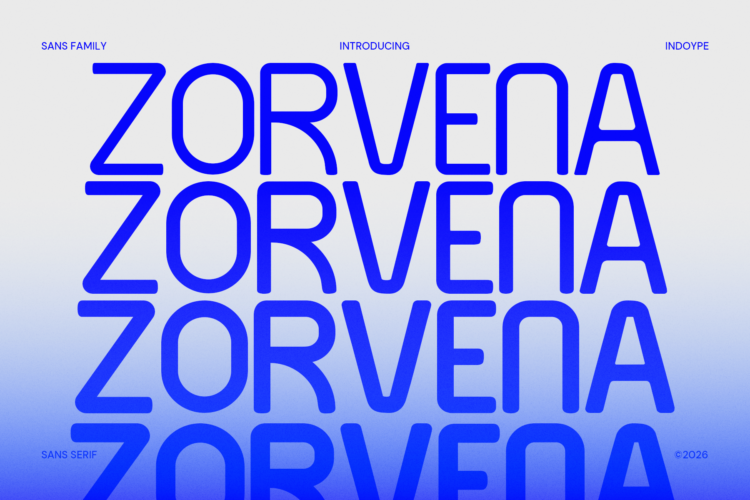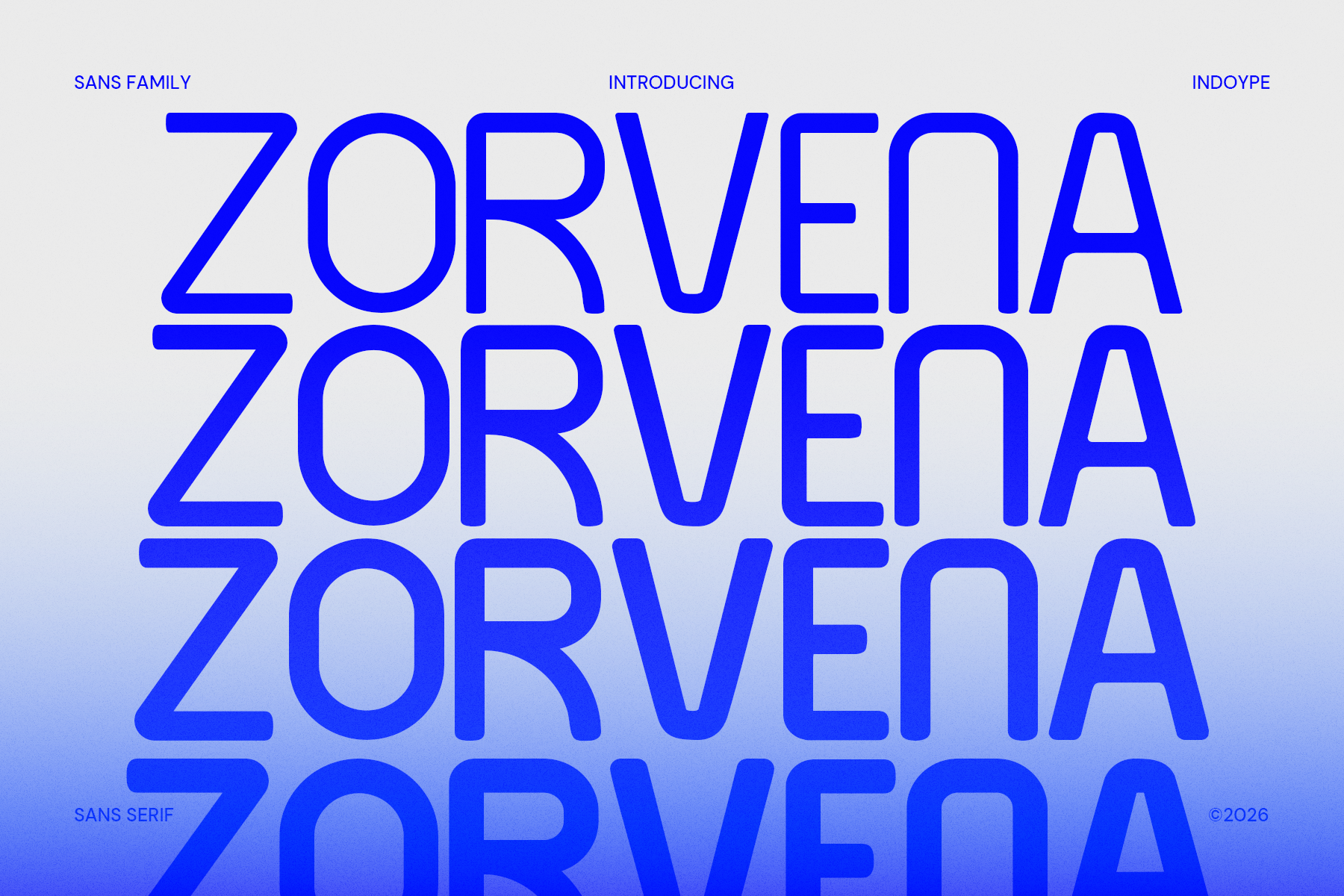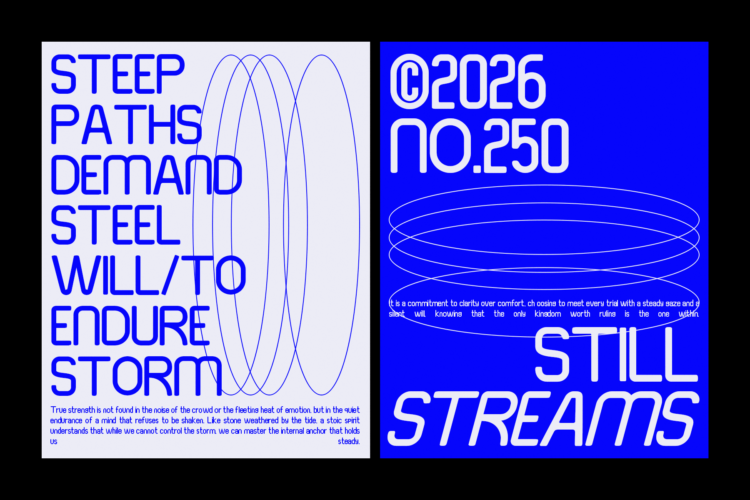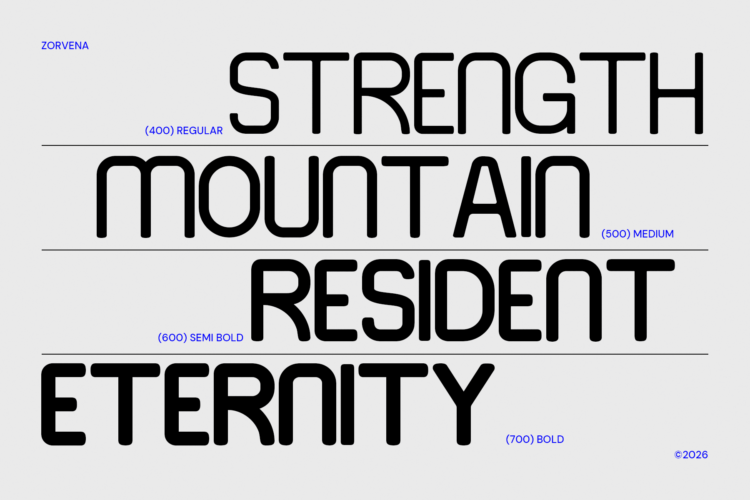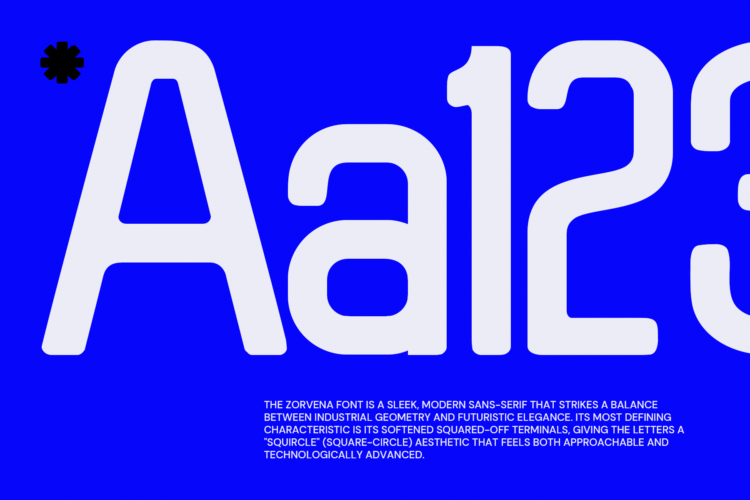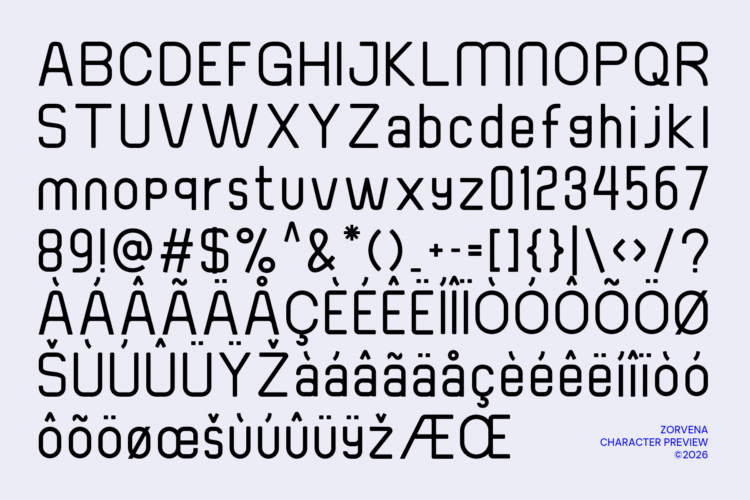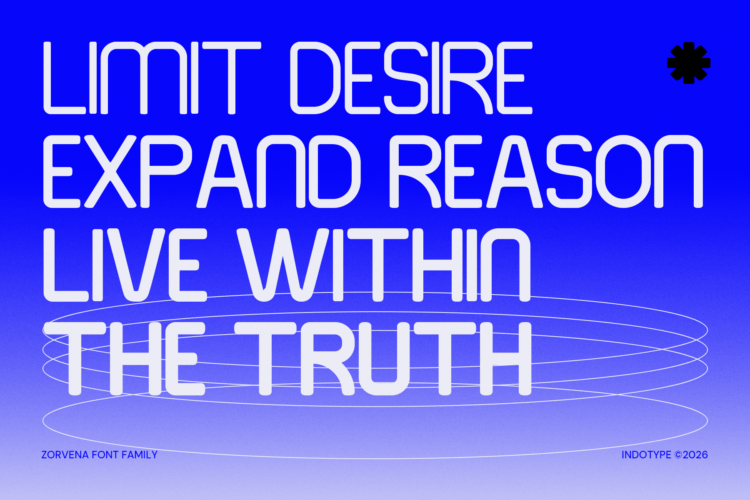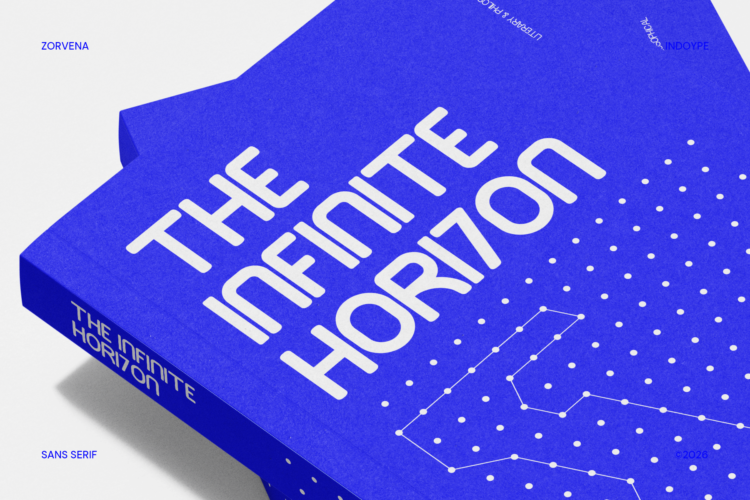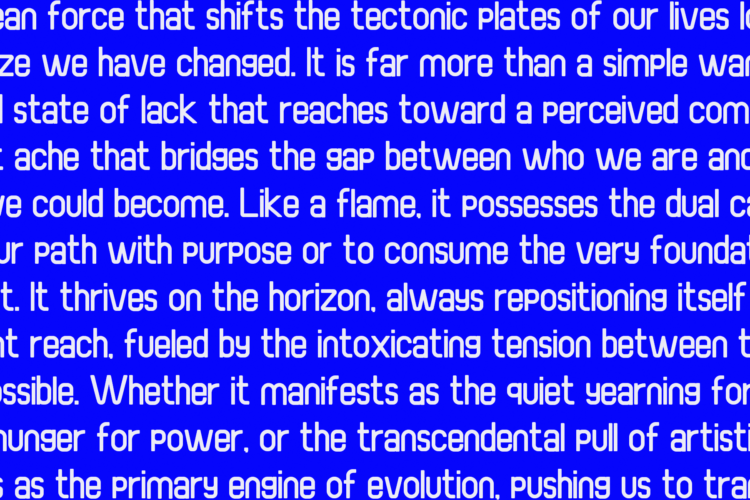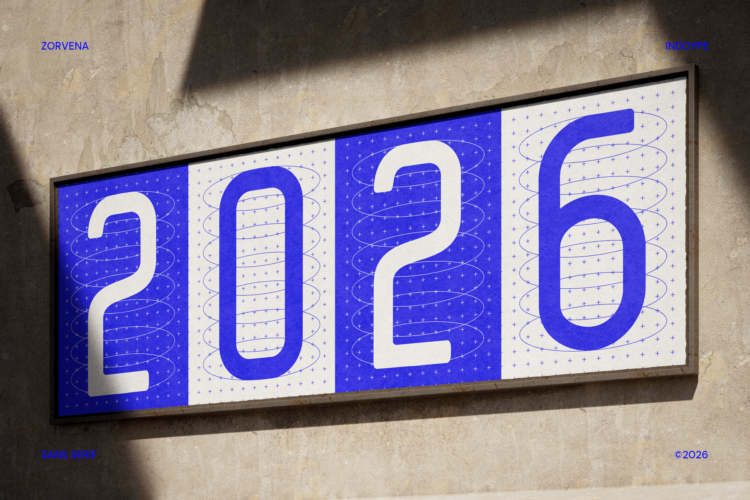
Zorvena Regular
Zorvena is a clean, modern sans-serif font family that operates at the intersection of geometric precision and humanist warmth — a typeface engineered for the demands of contemporary brand design, digital product development, and large-scale visual communication. Zorvena brings together the structural confidence of geometric sans-serif tradition with a distinctive rounded stroke quality that gives the family an approachability and forward-looking energy that purely geometric typefaces often lack. This is a typeface that feels simultaneously authoritative and welcoming, technical and human, systematic and alive — qualities that make it extraordinarily versatile across the full range of modern design applications.
Zorvena’s most immediately compelling quality is the generous roundness of its stroke terminals and the way this roundness interacts with the typeface’s bold, wide proportions to create letterforms of unusual visual richness. The strokes terminate in smooth, fully rounded ends rather than the flat cuts of conventional geometric sans-serifs — a decision that softens the overall texture of set text while maintaining the structural authority that comes from consistent stroke widths and geometric construction. This rounded terminal treatment is visible across every character, creating a unified visual texture that gives Zorvena its distinctive personality and makes it instantly recognizable at any scale.
Zorvena – Clean Modern Sans Serif Family